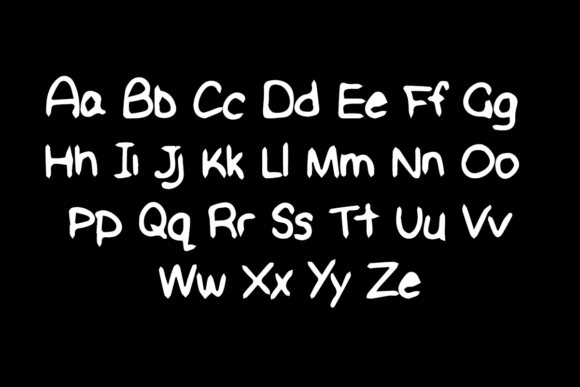
Second Grade Font
About Second Grade Font
Second Grade is a delightful and charming display font that embodies simplicity and playfulness. Its cute and childish appearance makes it a perfect choice for a variety of creative purposes, including invitations, logos, social media posts, titles, magazines, greeting cards, and any project that could benefit from a friendly, handwritten touch.
This font exudes a warm and approachable vibe, making it particularly suitable for designs targeted at children, families, or any audience that appreciates a lighthearted and friendly aesthetic. Its simplicity adds to its versatility, allowing it to complement a wide range of visual styles and themes.
Whether you’re designing birthday invitations, crafting a logo for a kids’ brand, creating engaging social media posts, or designing playful greeting cards, Second Grade adds an endearing and personal feel to your projects. Its handwritten look gives your text a genuine and authentic touch, creating a connection with the viewer and evoking feelings of joy and nostalgia.
The playful nature of Second Grade makes it a valuable asset for designers who want to create designs that stand out and leave a lasting impression. Its versatility and friendly appeal make it suitable for both digital and print applications, allowing you to bring your creative ideas to life in various mediums.
Embrace the charm of Second Grade and let your imagination run wild as you incorporate this font into your designs. Its simple yet captivating style adds a touch of innocence and whimsy to any project, making it a popular choice among designers seeking to create delightful and memorable visual experiences. With Second Grade, you can infuse your designs with a sense of childhood wonder and create engaging visuals that resonate with your audience.